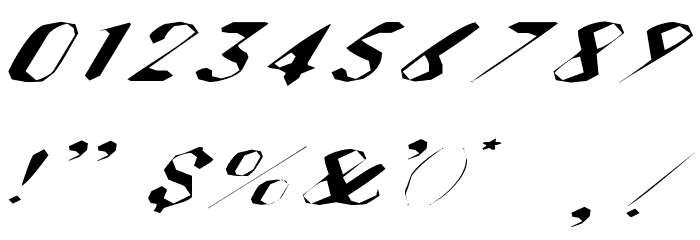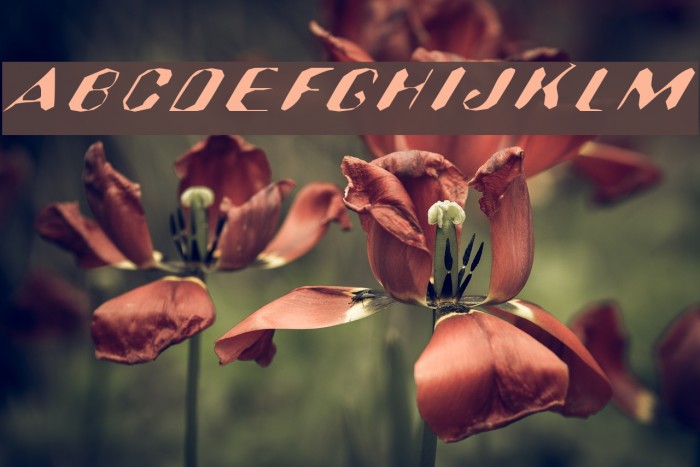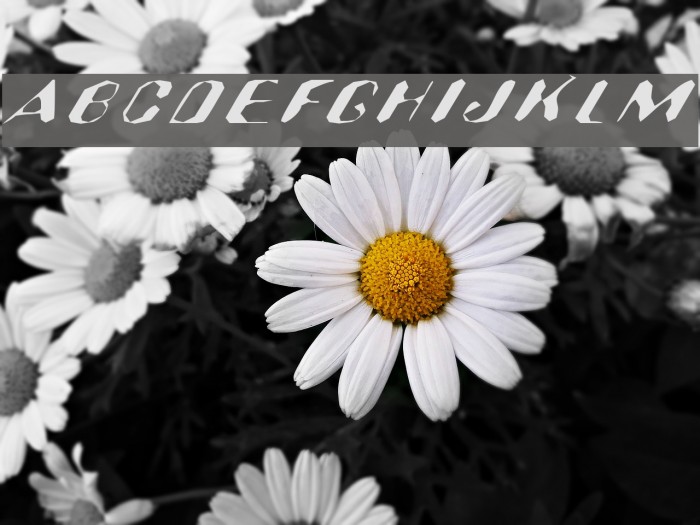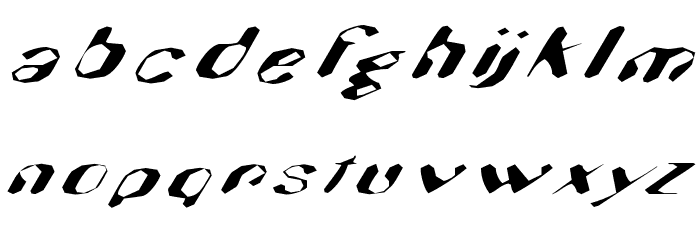
Hugenick Font
This font features a dynamic and angular design, characterized by sharp edges and a slanted orientation that gives it a sense of movement and energy. The uppercase letters are bold and striking, with a unique geometric style that makes each character stand out. The lowercase letters maintain the same angular aesthetic, providing a cohesive look across the font. Numbers and special characters are designed with the same attention to detail, ensuring consistency throughout. The font's high contrast between thick and thin strokes adds to its bold appearance, making it ideal for attention-grabbing designs.
A bold, angular font with a dynamic, slanted style and high contrast strokes.
• Proposed Projects: This font is perfect for projects that require a bold statement, such as branding, posters, and headlines. Its unique style can also be used in modern art designs or edgy fashion labels.